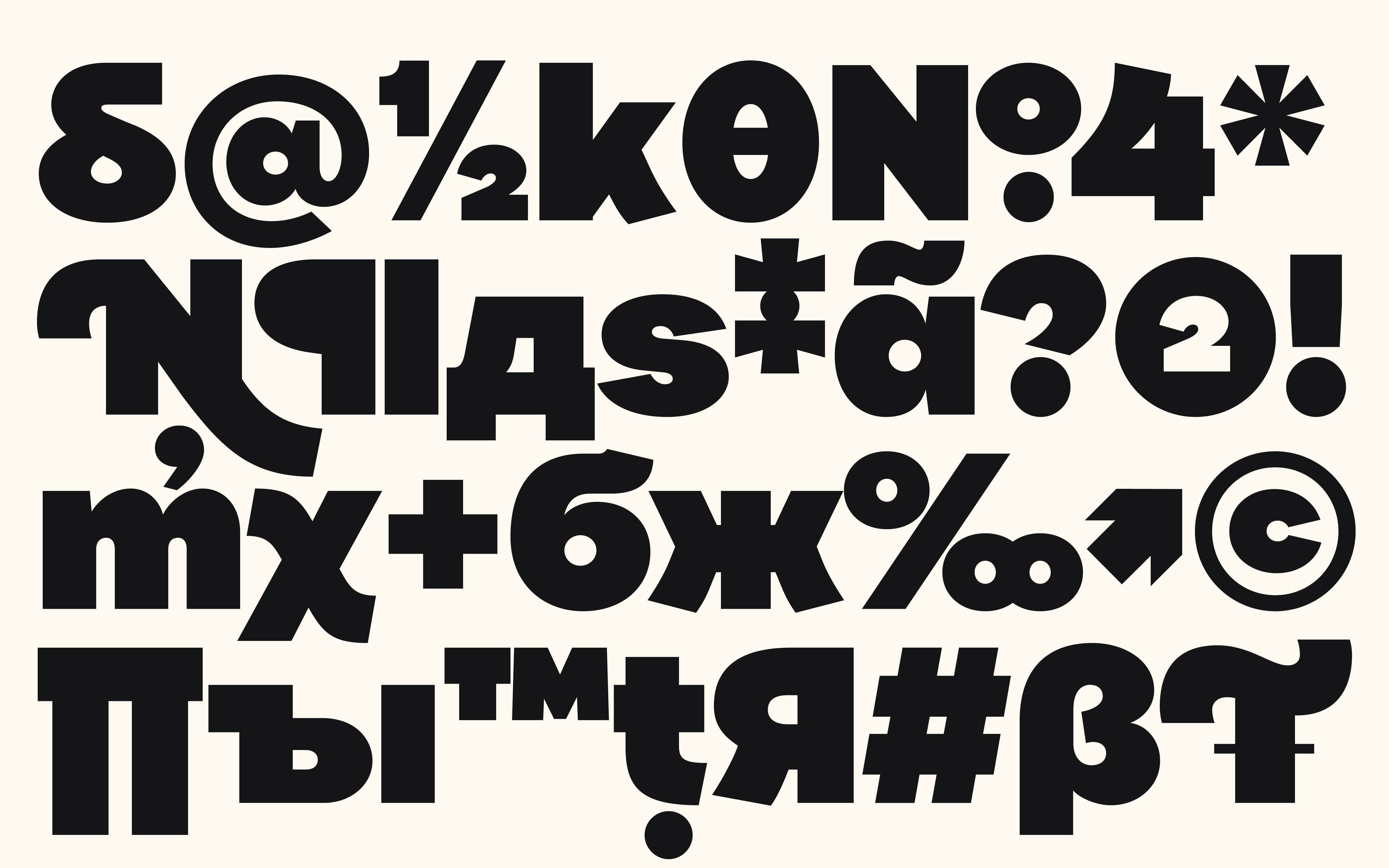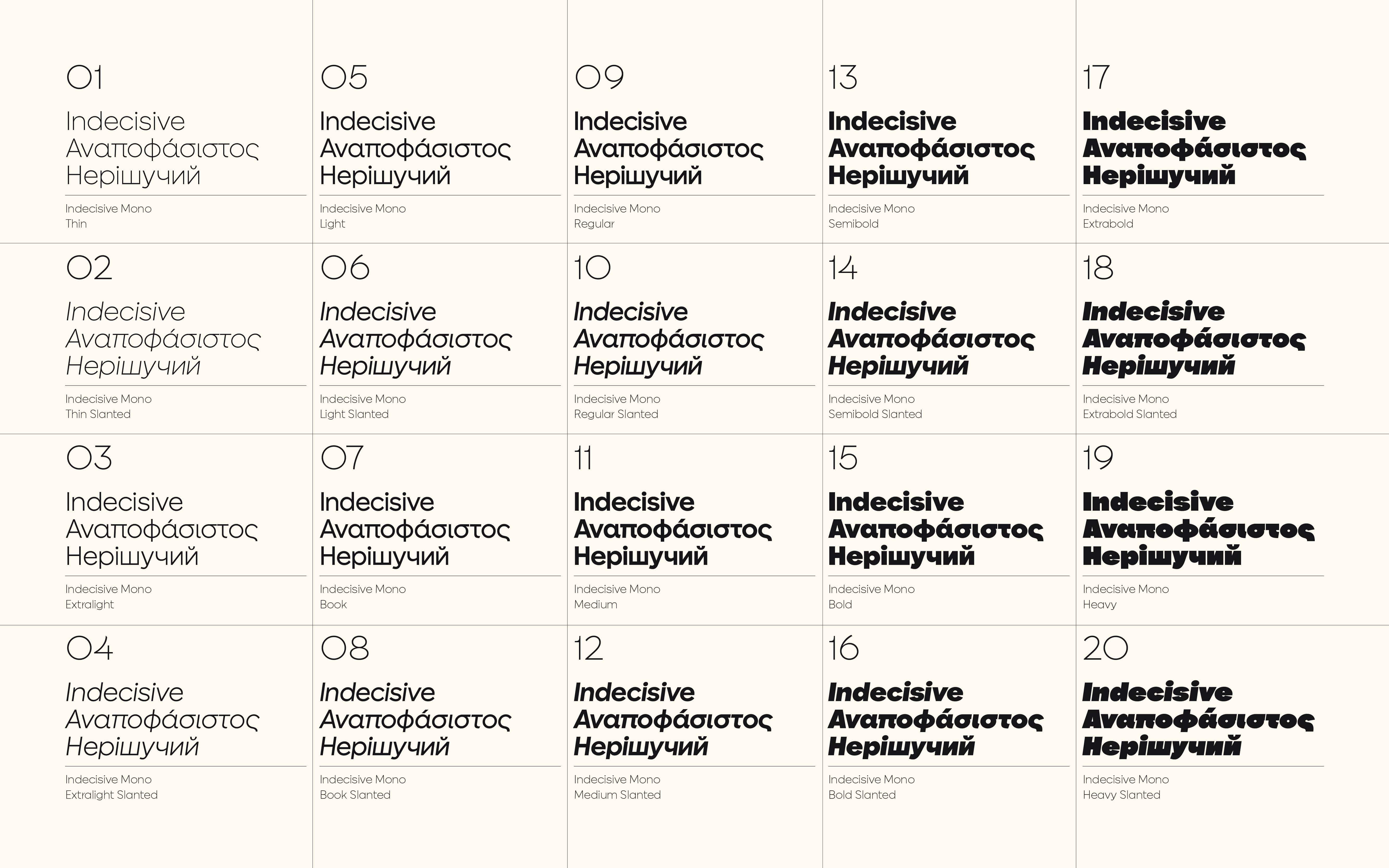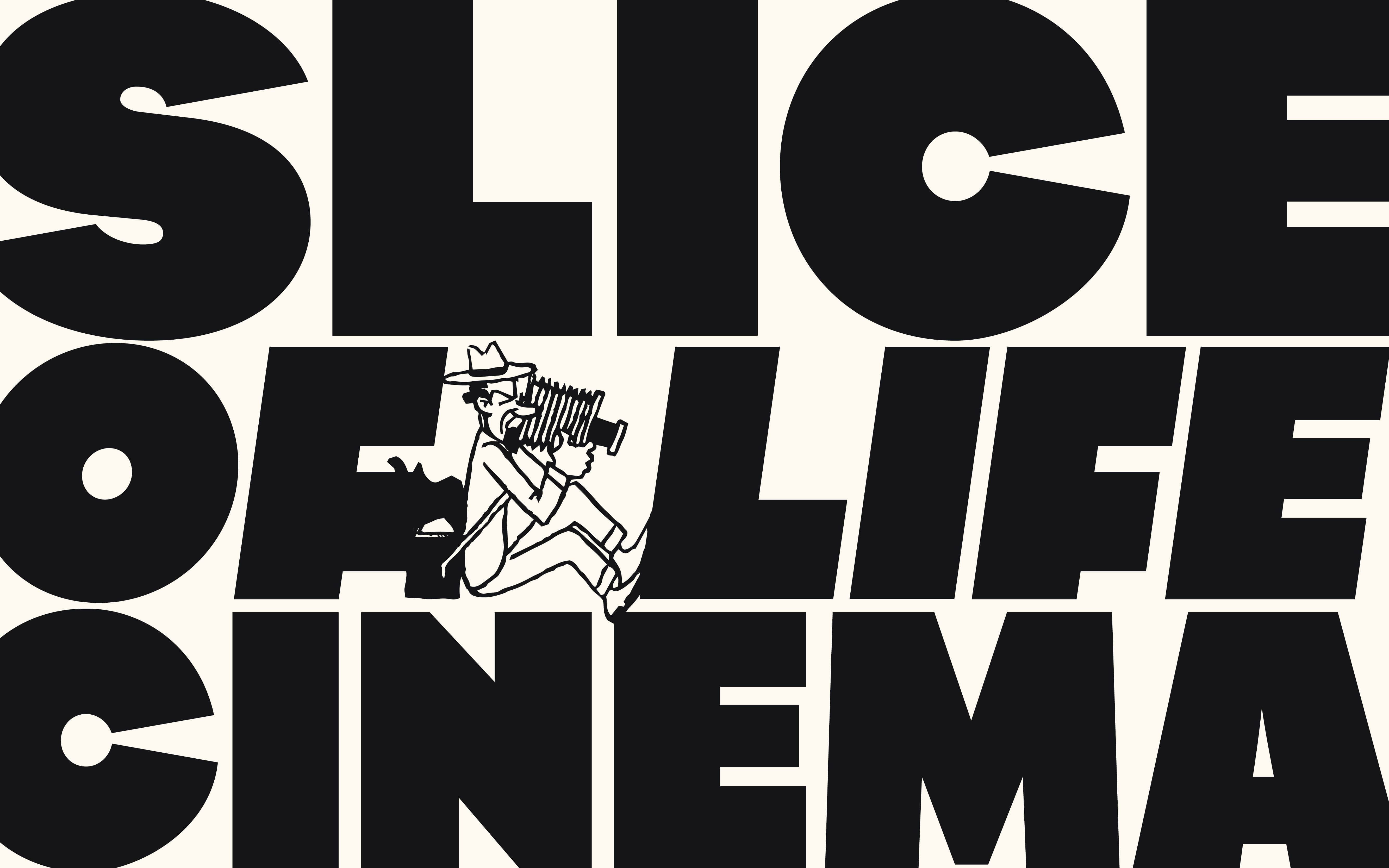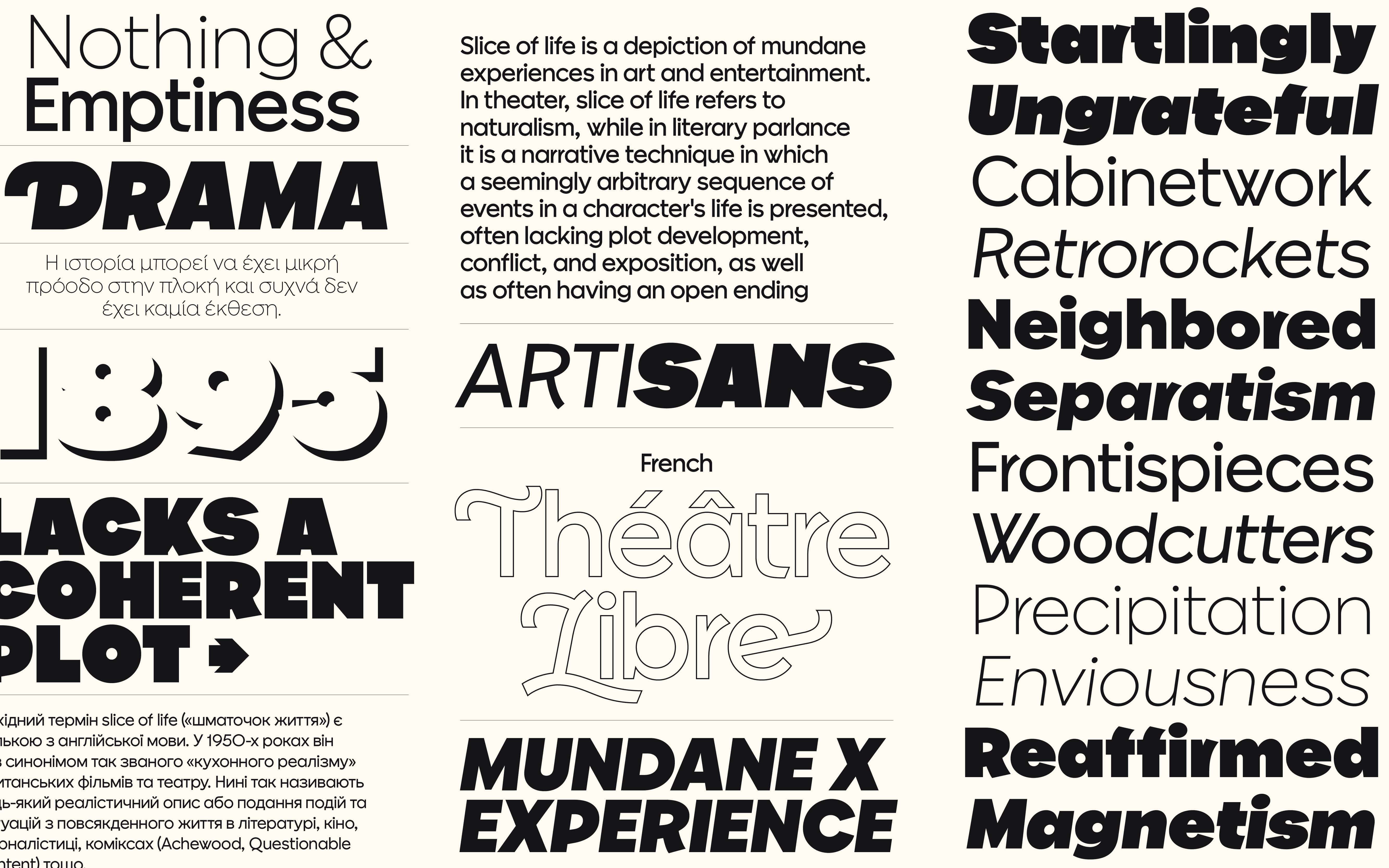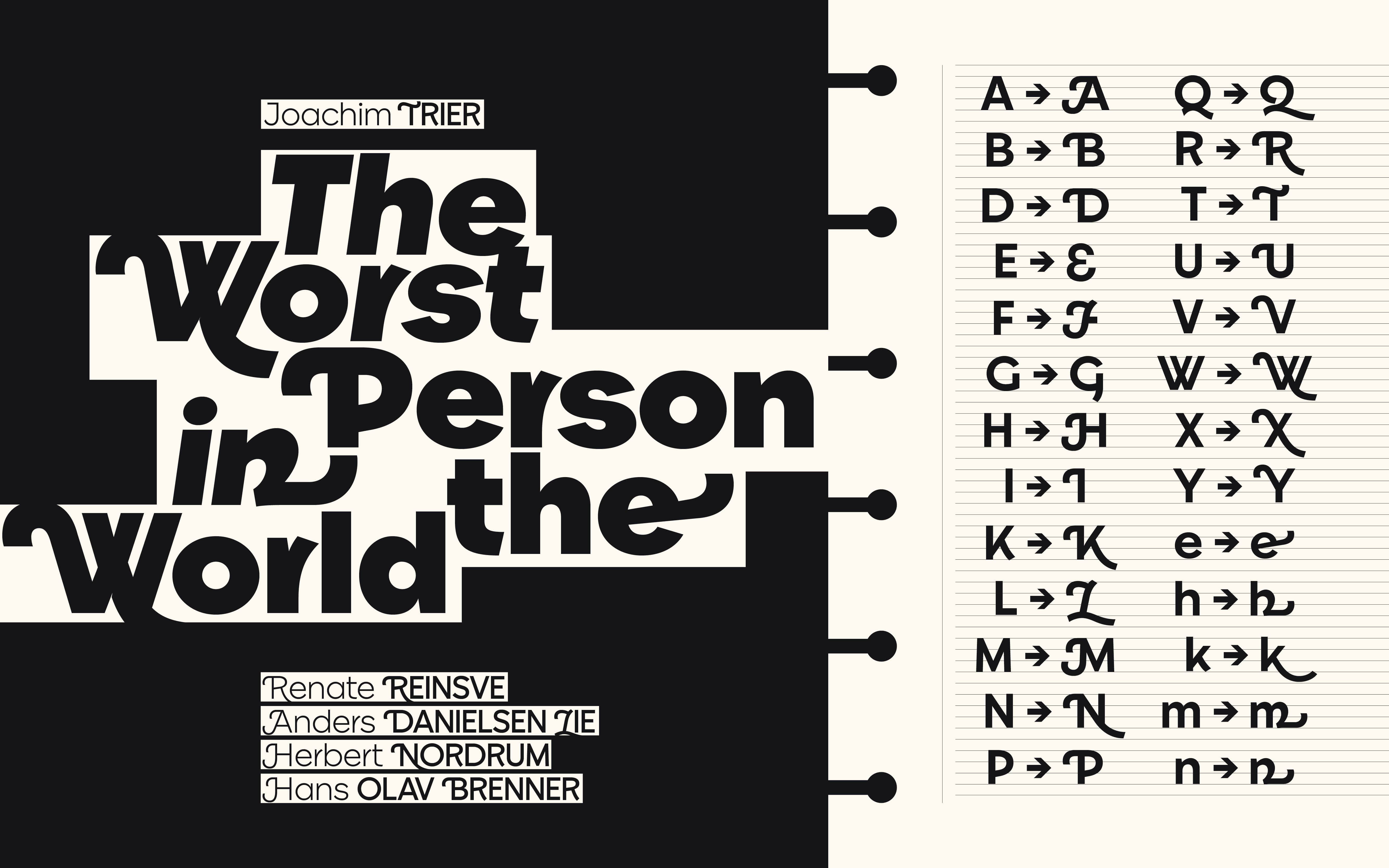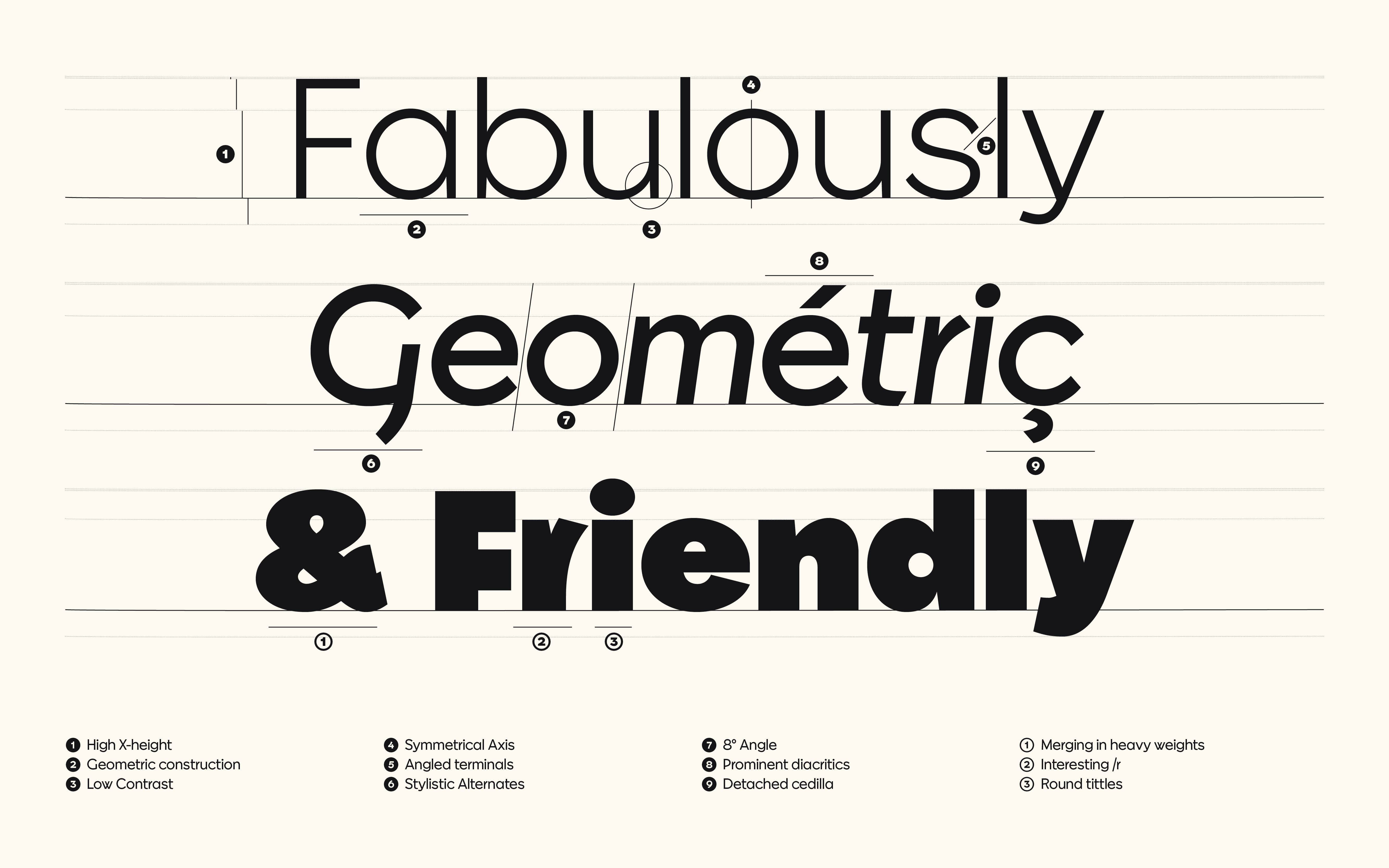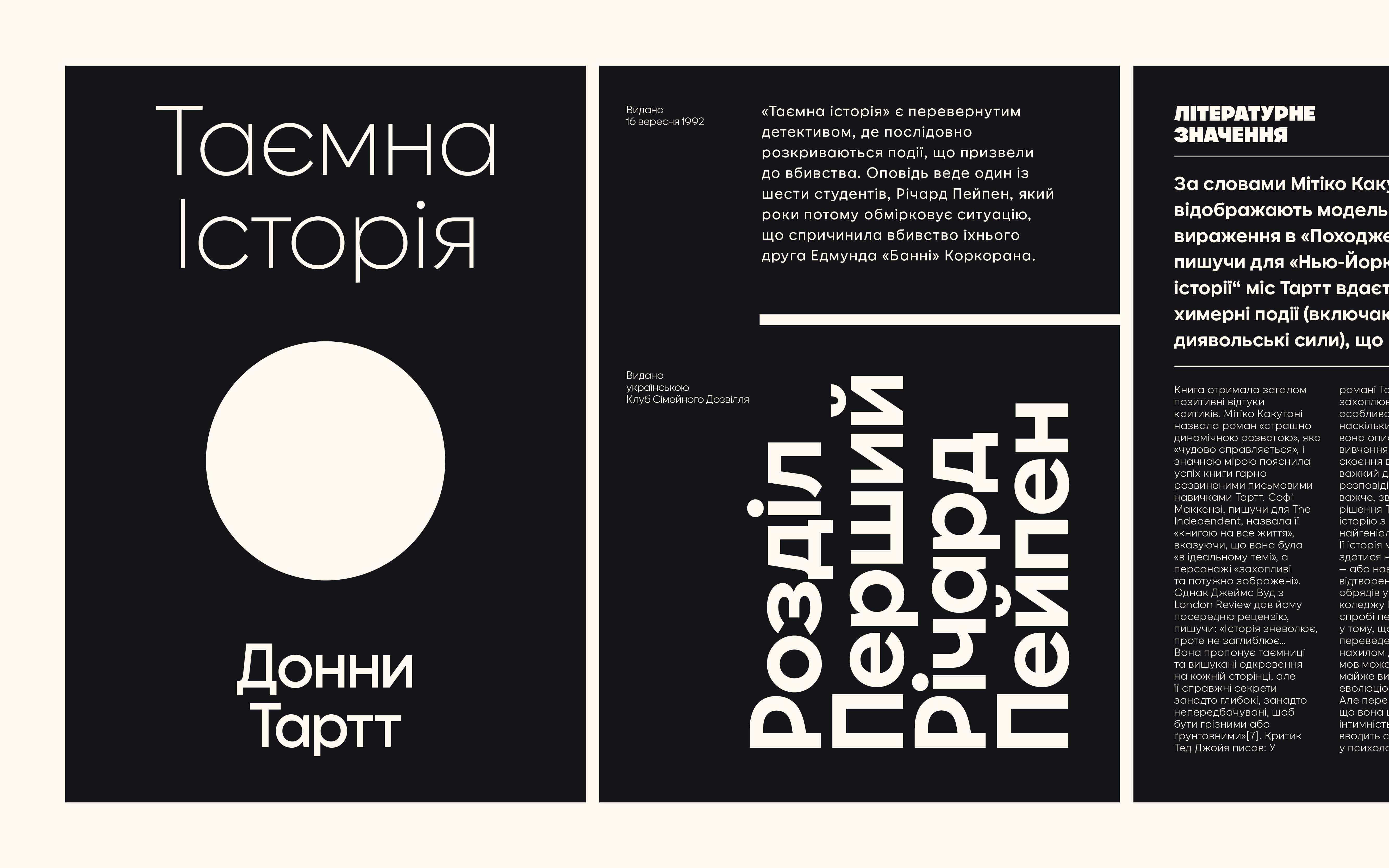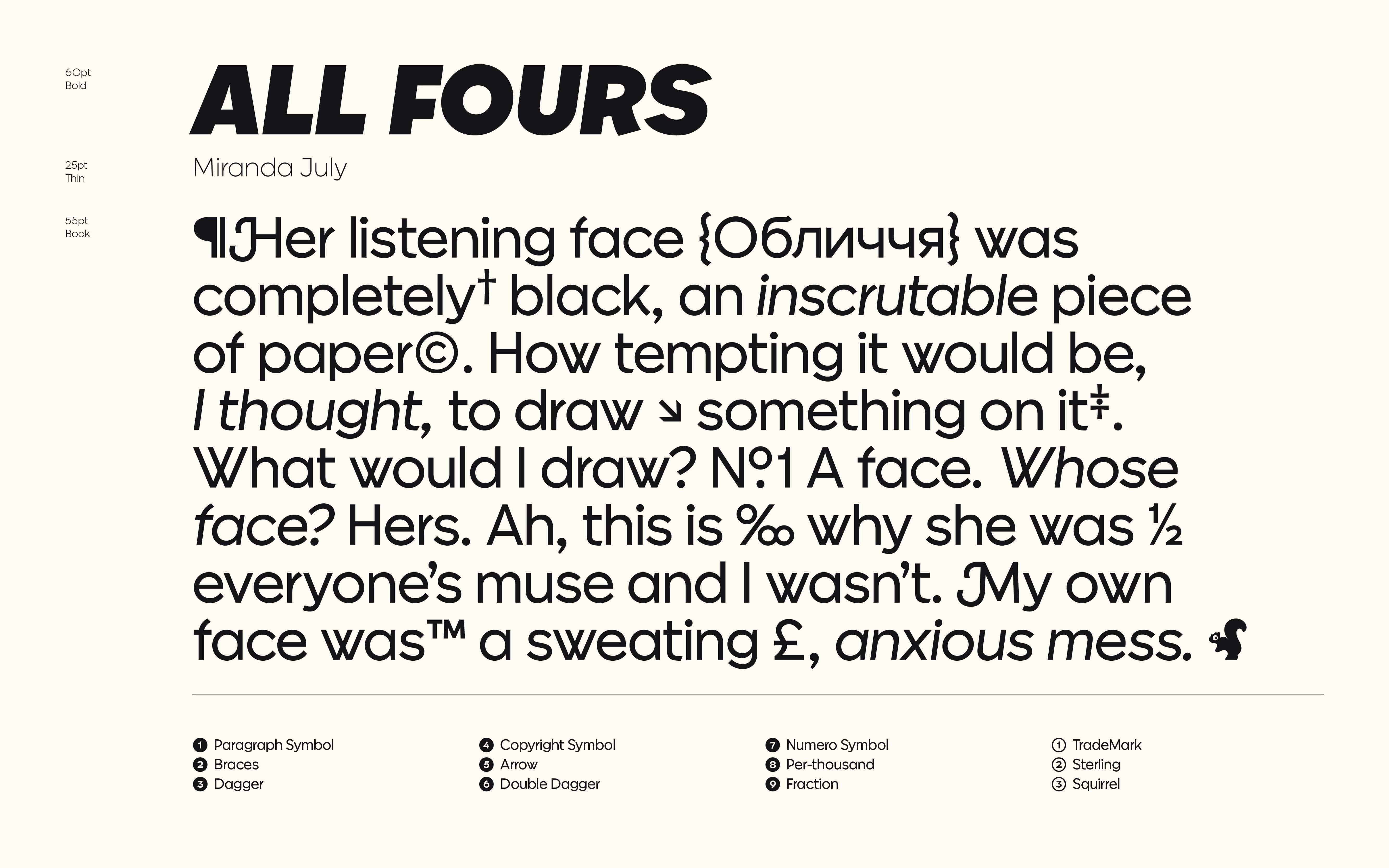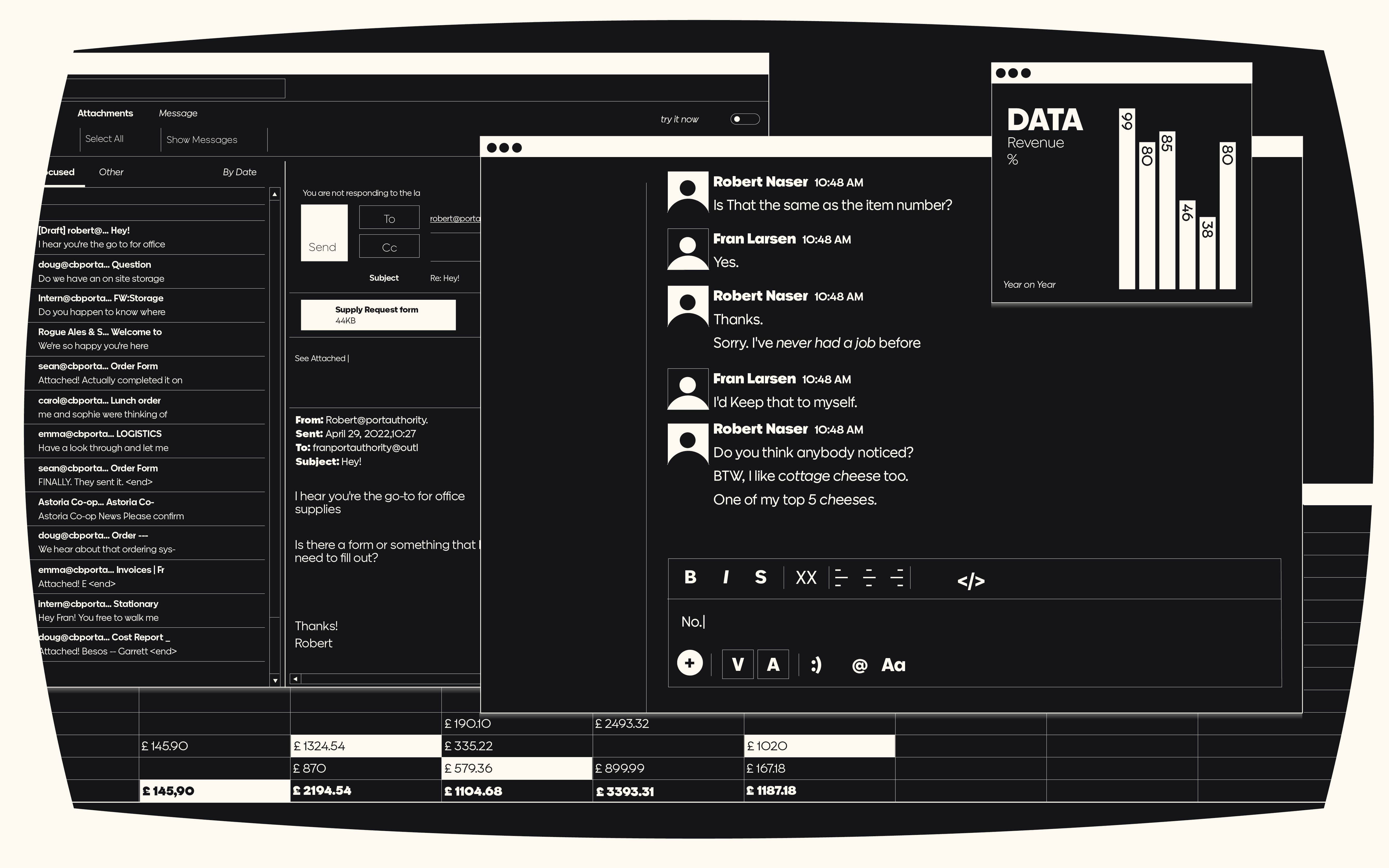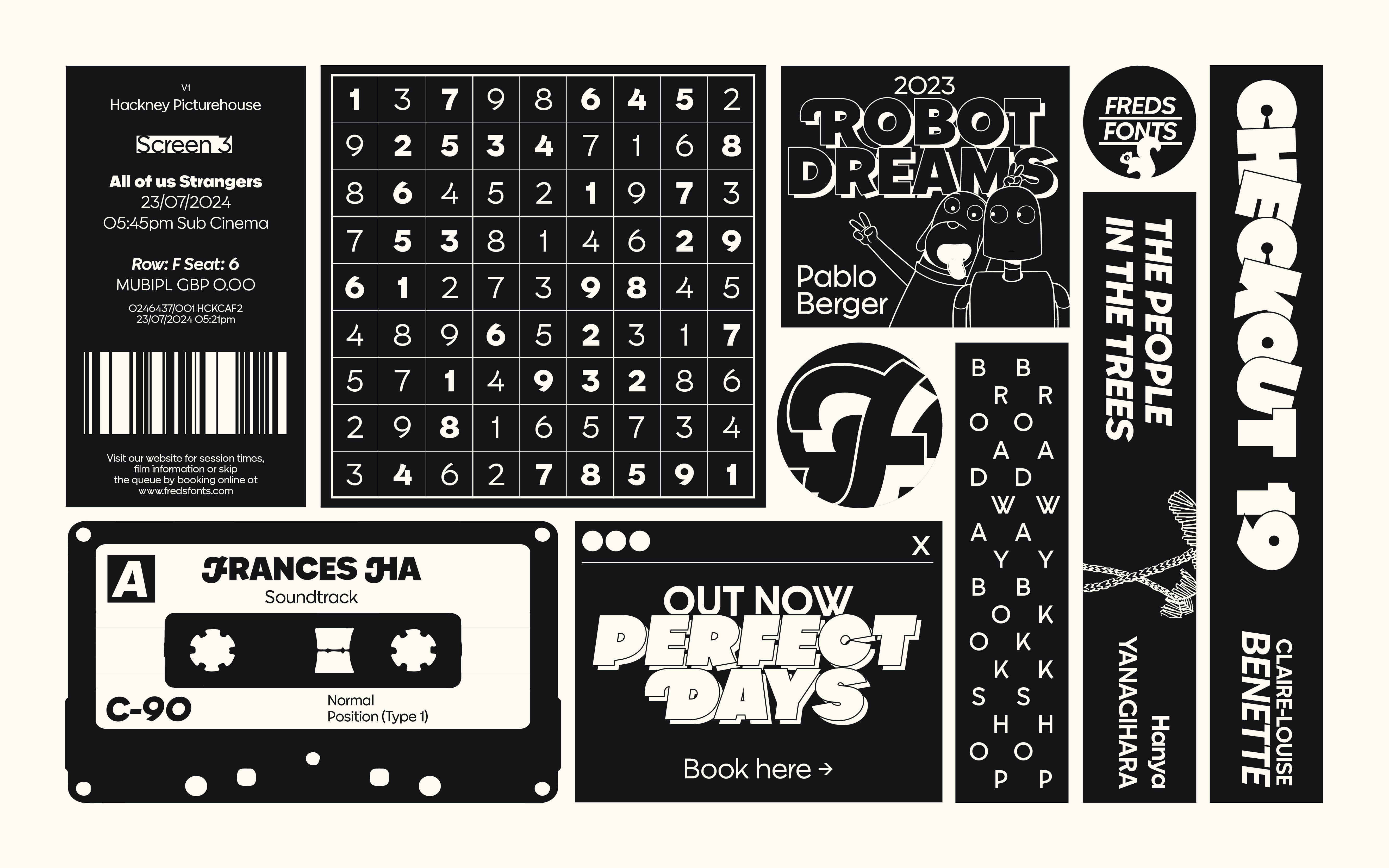
Indecisive Sans
How to create an original Geometric Sans? Indecisive Sans takes on a more playful and approach than most Geometric Sans. Indecisive Sans isn’t based off of one source of inspiration, but merges elements from various Sans Serifs, such as Bernhard Gothic, Nobel Antieke and Spartan. Equally, Indecisive Sans comes with a set of alternate, swash characters derived from Old-Style italic Serifs from punchcutters like Granjon. This merger has resulted in a joyful and distinct Geometric Sans perfect for any setting. It comes in 20 styles, from Thin to Heavy, with slanted counterparts providing the user with plenty of versatility for any design.
Indecisive includes Latin extended, Greek and Cyrillic across all styles and alternates, Indecisive will have something for everyone. Its Heavier weights embrace Indecisive’s playful nature and allow for strokes to merge. Its lighter weights are more reserved and well equipped to tackle larger paragraphs of text. Indecisive has some stand out characters such as the /r and /w and swooping out-strokes on the /K and /R, allowing it to stand out without being overbearing.
From newspapers, magazines and posters to websites, animations and packaging, Indecisive Sans radiates a sense of fun, warmth and charisma that will enrich any design.
Latin European, Cyrillic and Greek